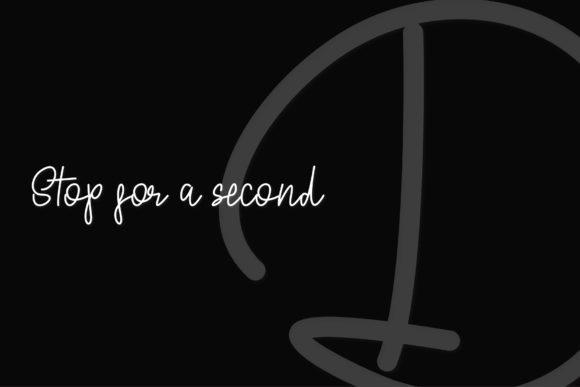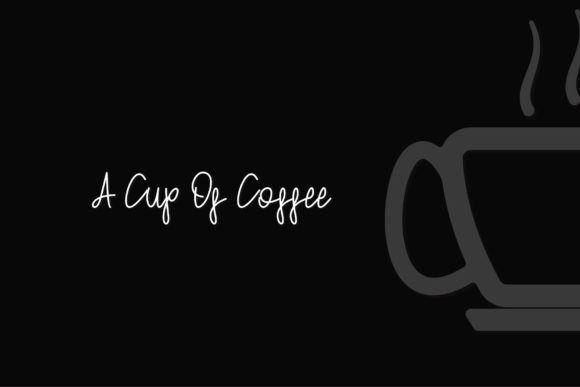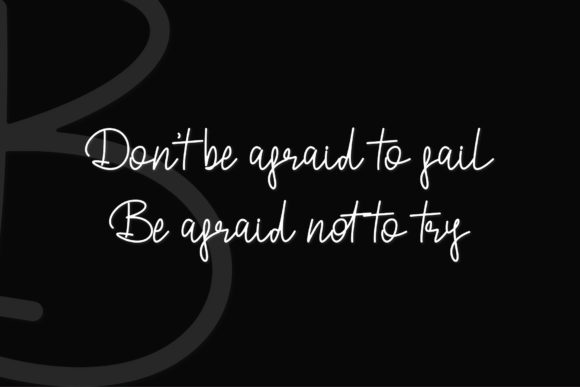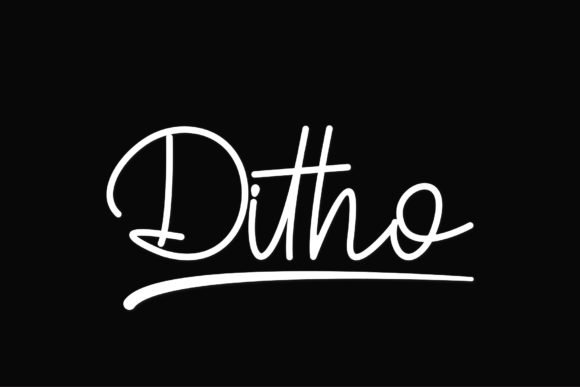
Introduction to Ditho Font
Ditho is a sweet and friendly handwritten font.
Key Features of Ditho Font
Why Choose Ditho Font?
Ditho Font offers exceptional quality and versatility, making it a valuable addition to your design toolkit. Whether you’re creating for personal projects or commercial use, Ditho Font delivers professional results.